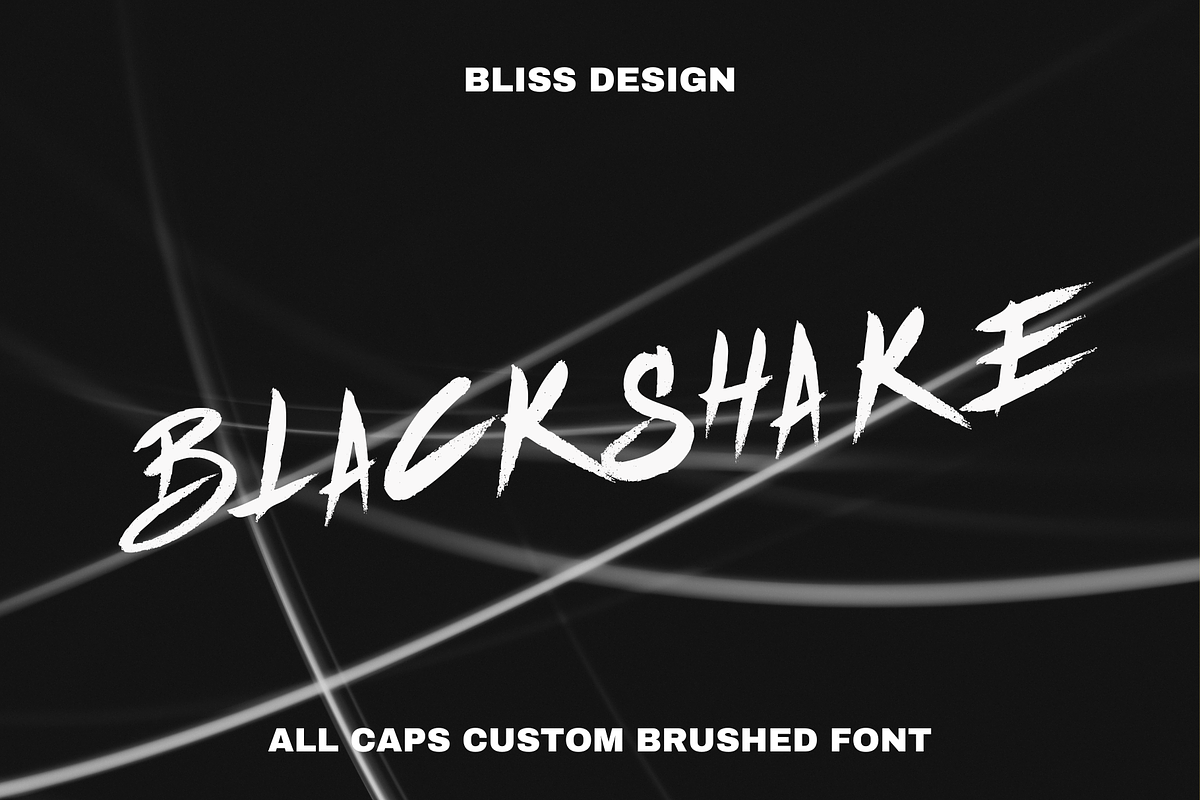
Blackshake custom brush font Free Download
Blackshake Custom Brush Font Free Download
Blackshake Custom Brush Font Free Download is a bold and energetic brush script that brings a handcrafted, rebellious feel to your designs. With its dynamic strokes, textured edges, and natural flow, this font is perfect for logos, apparel, posters, product packaging, and creative branding that craves a raw, expressive touch.
Blackshake Custom Brush Font Free Download stands out with its edgy, hand-drawn look—ideal for streetwear, music graphics, skate brands, or any design needing bold personality and artistic flair. It captures the essence of real brush lettering, giving your work an authentic, creative vibe.